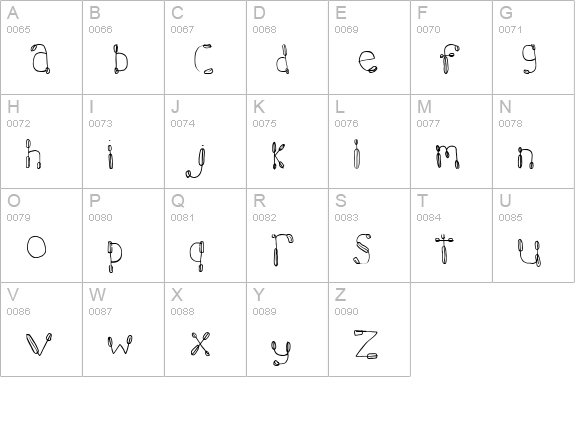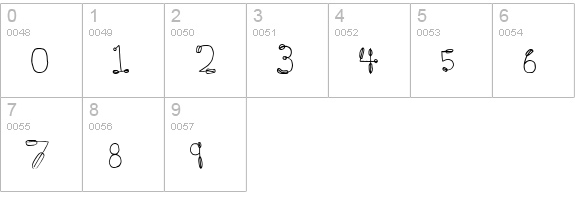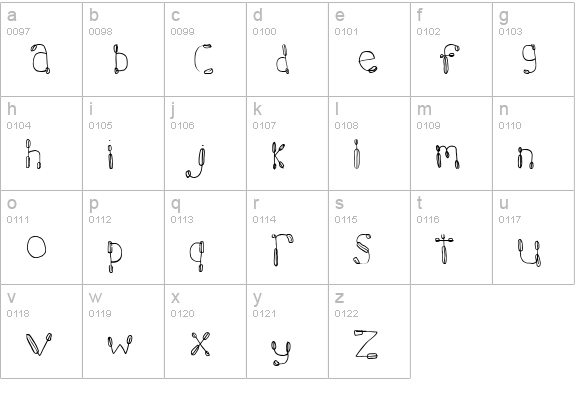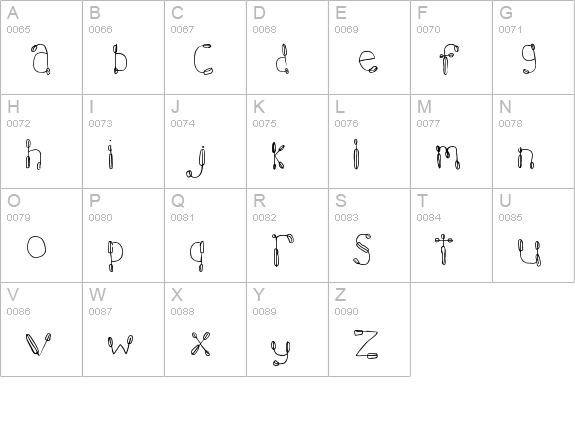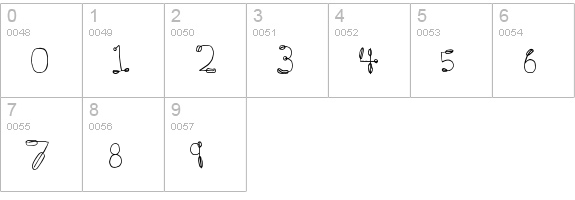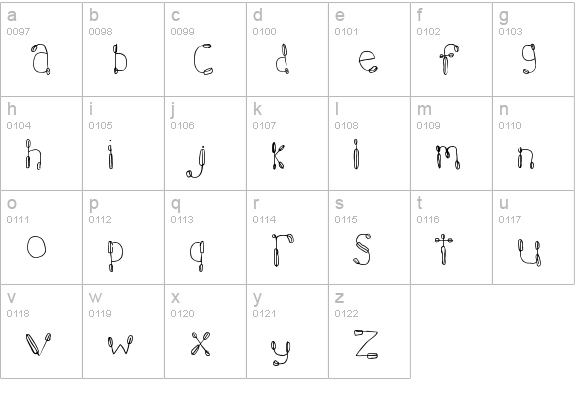
7 hours Font Details
Introducing the captivating 7 hours font, a versatile and stylish typeface that will elevate your designs to the next level. With its unique blend of modernity and elegance, this font is perfect for a wide range of projects, from branding to editorial design. Featuring sleek lines and a contemporary feel, the 7 hours font exudes sophistication and professionalism. Whether you're creating a logo, designing a website, or working on a print project, this font will make your text stand out and leave a lasting impression. What's even better is that the 7 hours font is freely available to download at FontsMarket.com. You can enhance your design toolkit with this exceptional font without any cost, making it a valuable asset for both seasoned designers and beginners alike. Don't miss out on the opportunity to add the 7 hours font to your collection and take your design projects to new heights. Download it today and let your creativity soar with this stunning and versatile typeface.